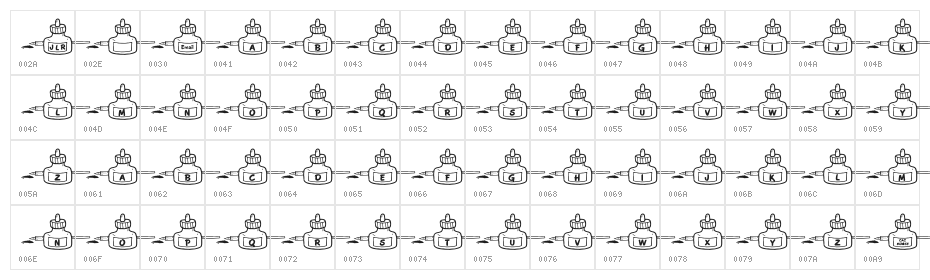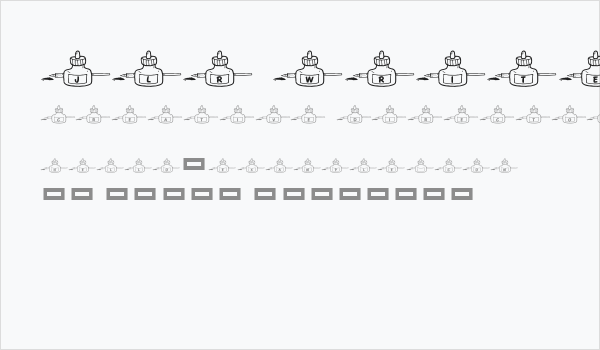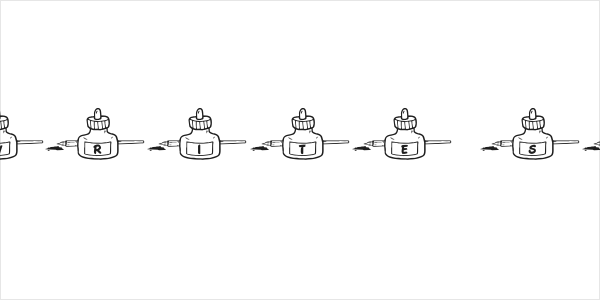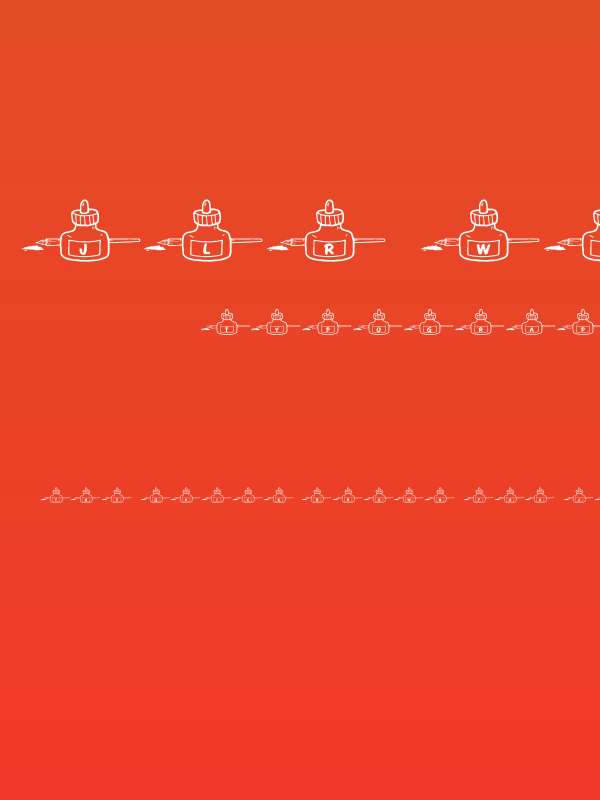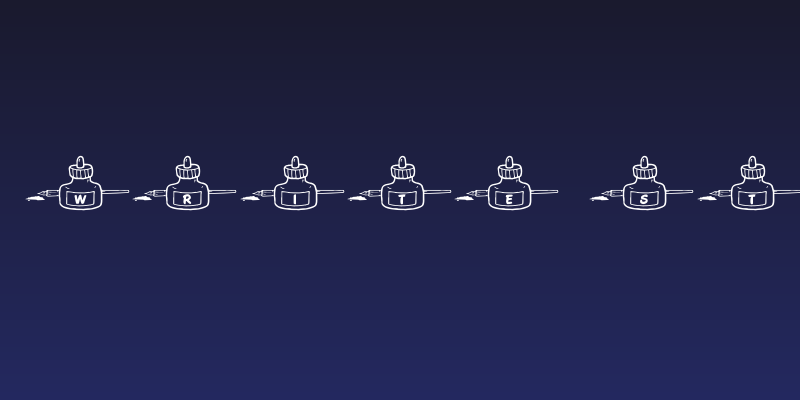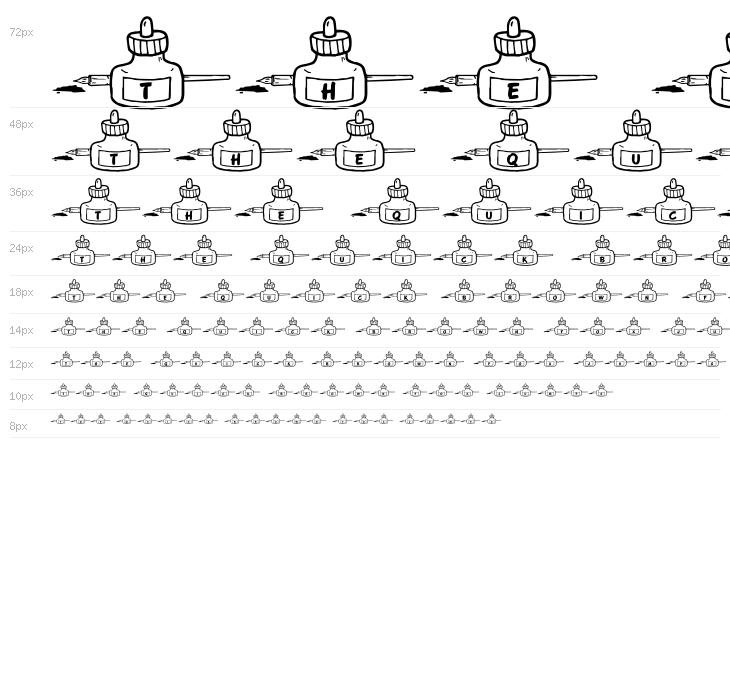
JLR Write Stuff Font
JLR Write Stuff Description
This font features characters enclosed within ink bottles, each with a quill pen extending from the side, creating a whimsical and artistic appearance. The letters are uppercase and lowercase, with numerals and special characters, all maintaining the same playful theme. The design is reminiscent of handwritten notes or calligraphy, with a touch of vintage charm. The characters are evenly spaced within their containers, ensuring readability while maintaining the decorative style. This unique presentation makes it suitable for creative projects that require a distinctive and artistic flair.
CategoriesHandwritten
ContrastMedium
Overall StyleDecorative
Use CaseLogos, Artistic projects, Invitations
Proposed ProjectsIdeal for creative projects such as greeting cards, invitations, artistic posters, or branding for artistic ventures.